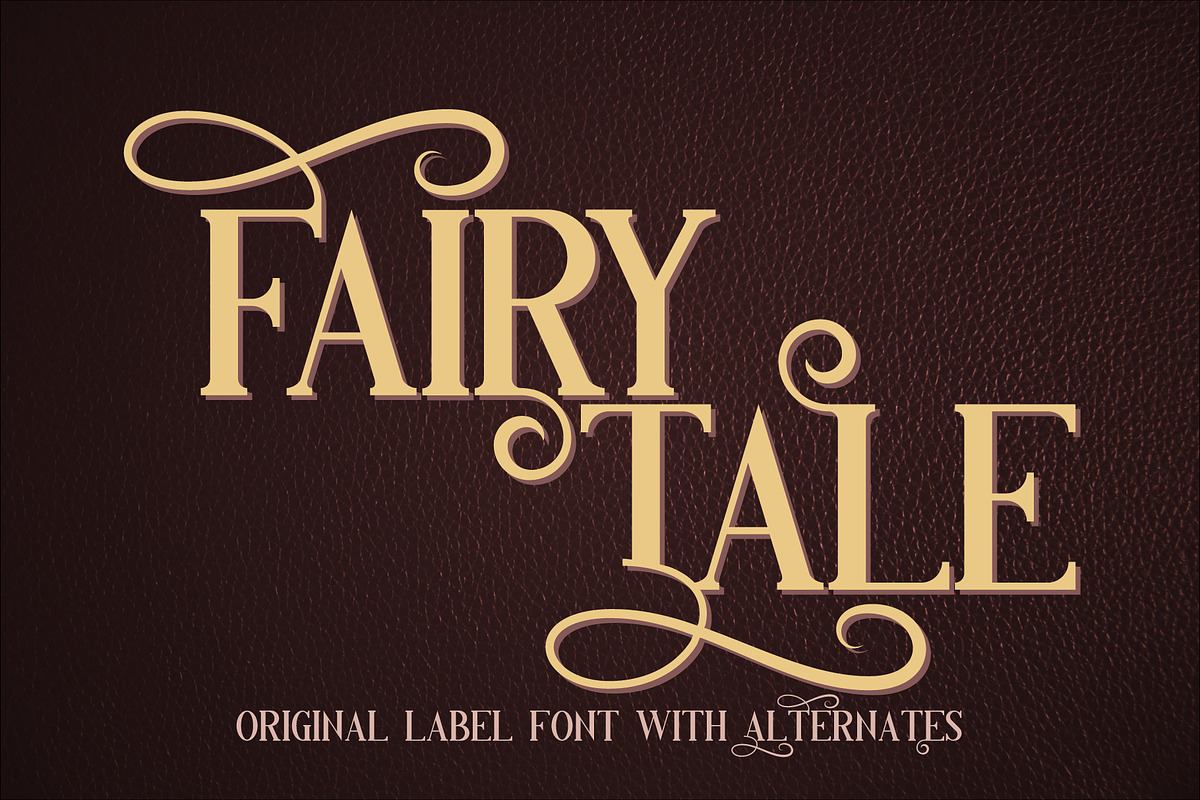
Fairy Tale Typeface Free Download is a whimsical and enchanting font designed to transport your designs into a magical world. With its decorative serifs, graceful curves, and storybook charm, this typeface is perfect for children’s books, fantasy-themed branding, event invitations, greeting cards, and magical product packaging.
Whether you're designing a fairytale logo or creating charming headings for a storybook, Fairy Tale Typeface brings a sense of wonder and imagination to every letter. Its playful elegance makes it suitable for both digital and print projects that need a touch of magic.